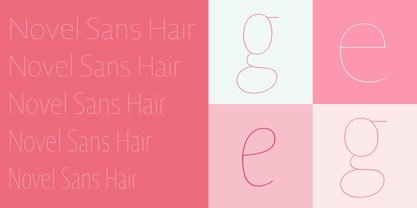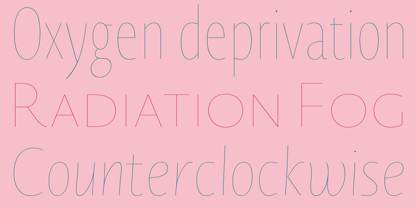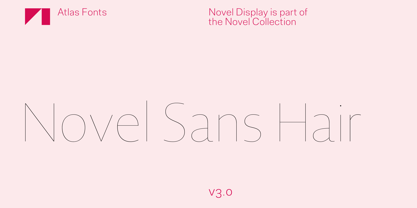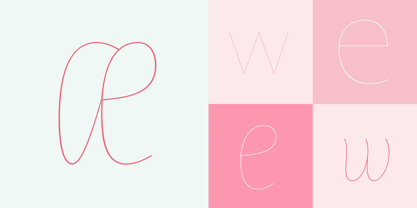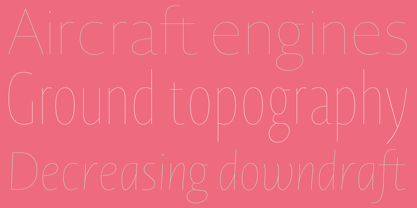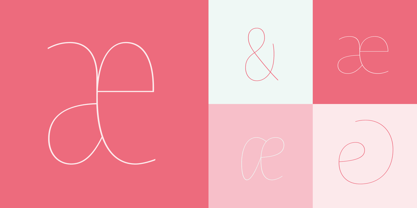
Novel™ Sans Hair
by Atlas Fonts
The Novel Sans Hair Font Family was designed by Christoph Dunst and published by Atlas Fonts. Novel Sans Hair contains 130 styles and family package options. More about this family
Novel Sans Hair is the new package of 24 ultra light weights of Novel Sans Pro, the humanist grotesque typeface family within the largely extended award winning Novel Collection, containing Novel Pro, Novel Sans Hair Pro, Novel Sans Condensed Pro, Novel Mono Pro, Novel Sans Rounded Pro and Novel Sans Office Pro. Novel Sans Hair has a carefully attuned character design and a well balanced weight contrast. Classic proportions and the almost upright italic makes Novel Sans Pro being a modern humanist with the calligraphic warmth of a real italic. Many similarities with the other typeface families within the Novel Collection enable designers to combine the families and reach highest quality in typography. Novel Sans Hair [1020 glyphs] comes in 24 styles and contains small caps, an extra set of alternate glyphs, many ligatures, lining figures [proportionally spaced and monospaced], hanging figures [proportionally spaced and monospaced], small caps figures [proportionally spaced and monospaced], positive and negative circled figures for upper and lower case, superior and inferior figures, fractions, extensive language support, arrows for uppercase and lowercase and many more OpenType™ features.
Designers: Christoph Dunst
Foundry: Atlas Fonts